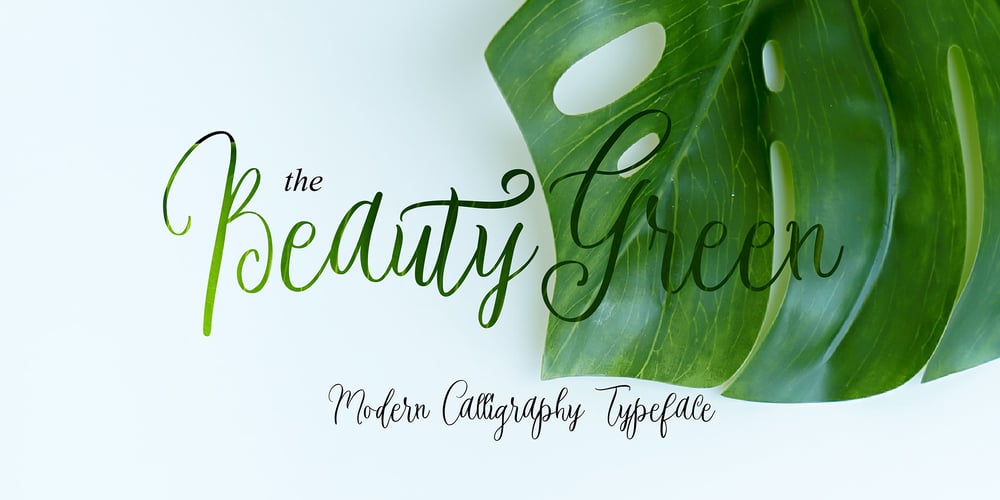
Beauty Green Font Family was designed by Rachma and published by BonjourType. Beauty Green contains 1 styles and family package options. Proudly Present, BeautyGreen Font.BeautyGreen is a modern script font, masterfully designed to become a true favorite. It maintains its classy calligraphic influences while feeling contemporary and fresh. Fall in love with it and bring your projects to the highest levels!Fonts featured : Uppercase, Lowercase, Numbers, Symbols, Accents, Stylistic, Swash, and Ligatures. BeautyGreen also multilingual support